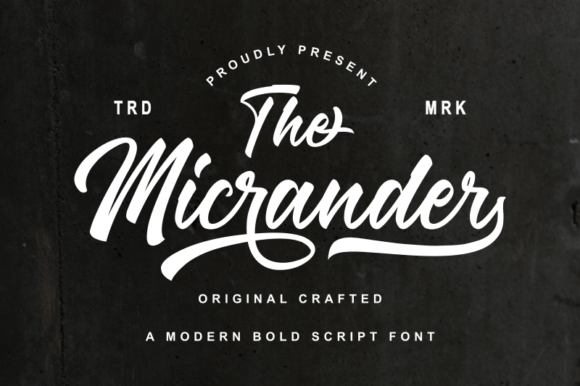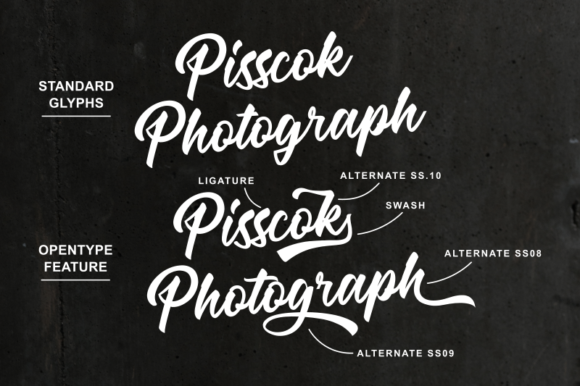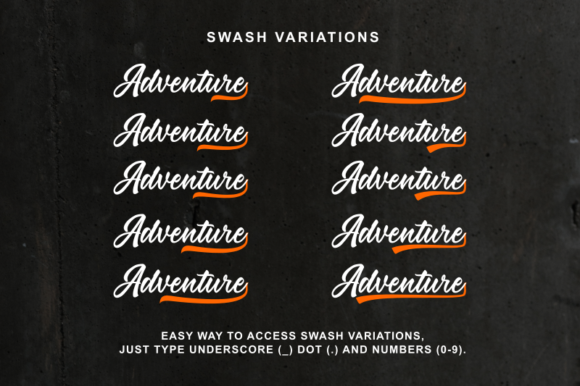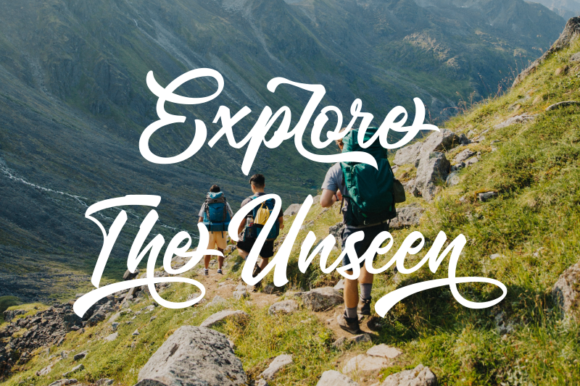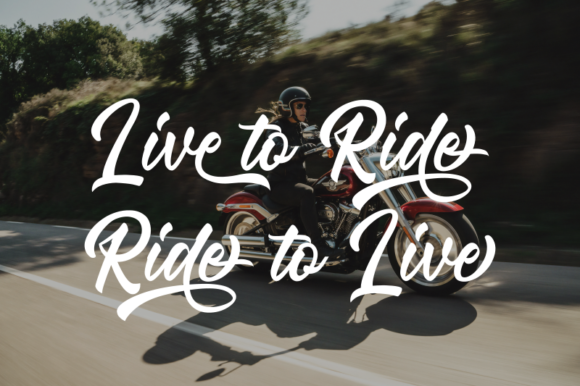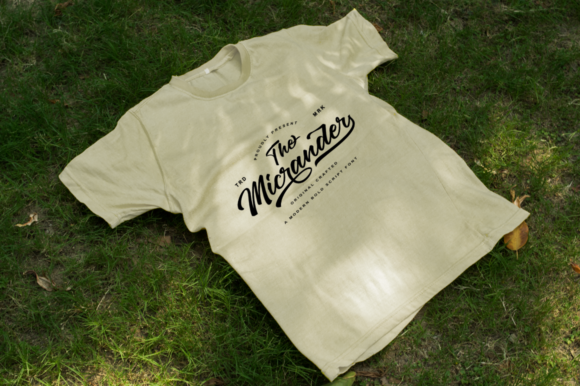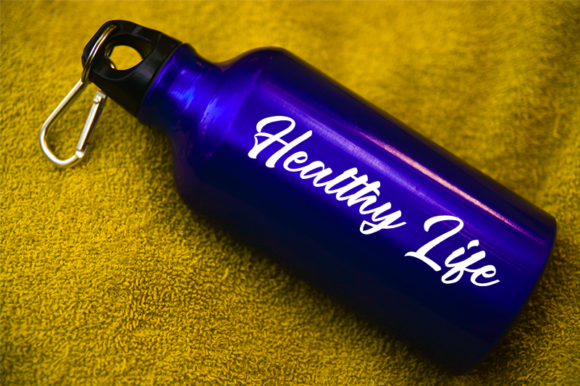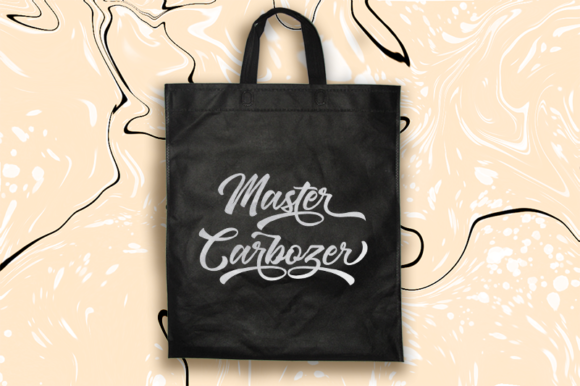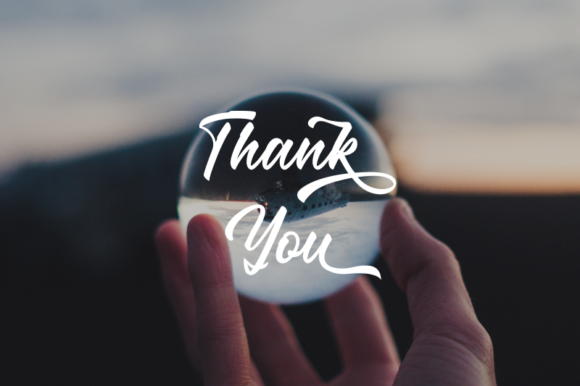
The Micrander Font
About The Micrander Font
The Micrander is an incredibly playful and dynamic script that’s great for turning any design project into a true standout. Fall in love with its unique charm!